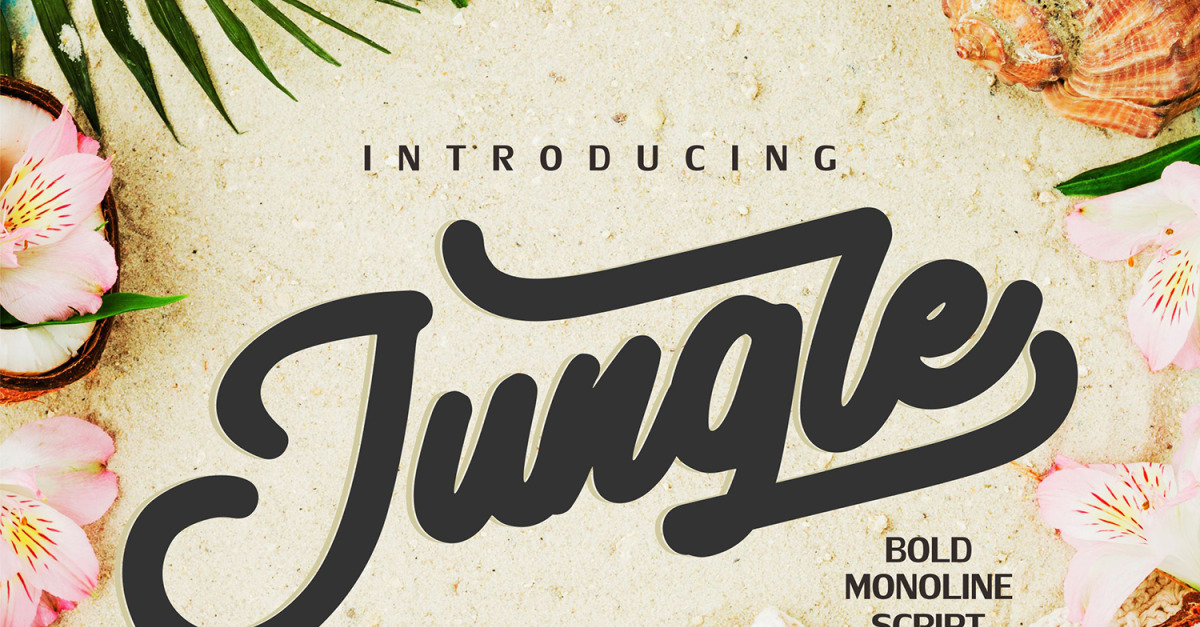
Jungle | Monoline Bold Cursive Font
**Jungle | Monoline Bold Script** with a calligraphy style, So beautiful on invitation like greeting cards, branding materials, business cards, quotes, posters, and more!